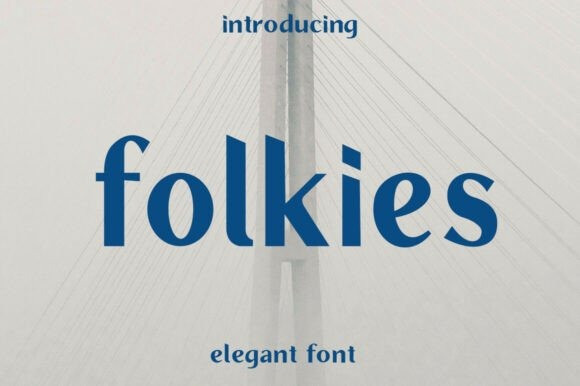
Folkies Font
Folkies Font is a sans serif font designed with a modern style while still conveying a warm and friendly feel. Its letterforms are simple, clean, and well-proportioned, conveying a professional impression without losing its humanistic edge. Compared to stiff and technical sans serifs, Folkies offers visual softness through smooth lines and moderate curves, making it easy to read at both large and small sizes.